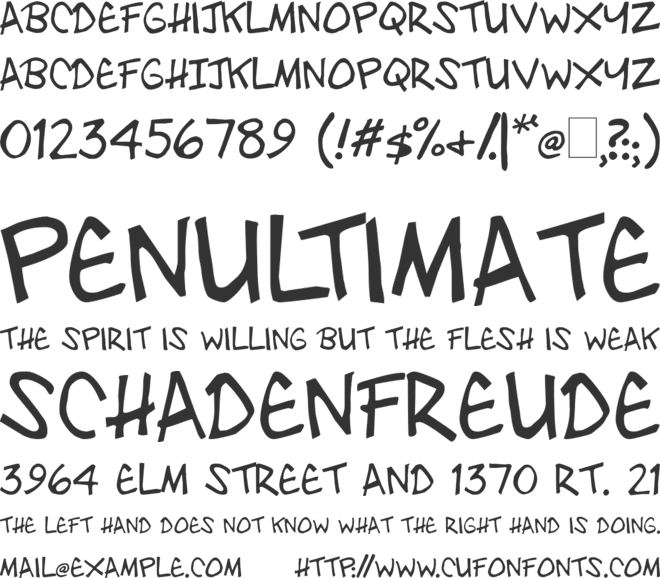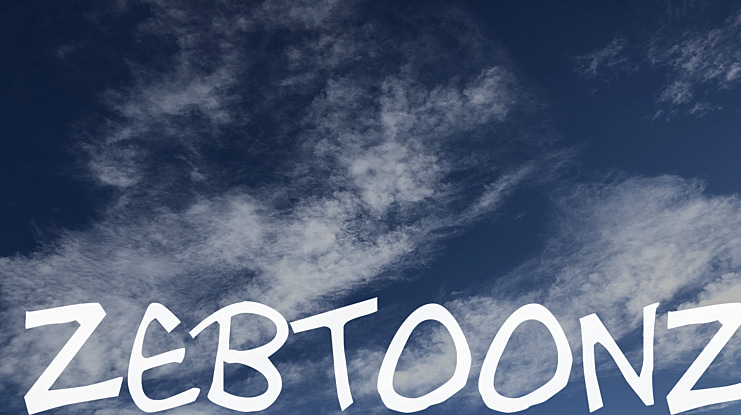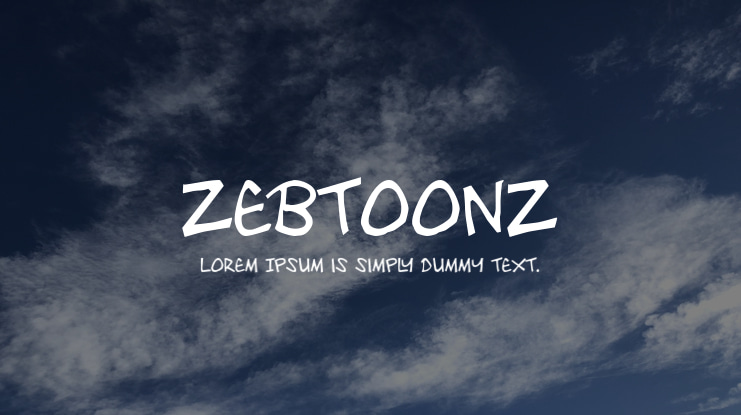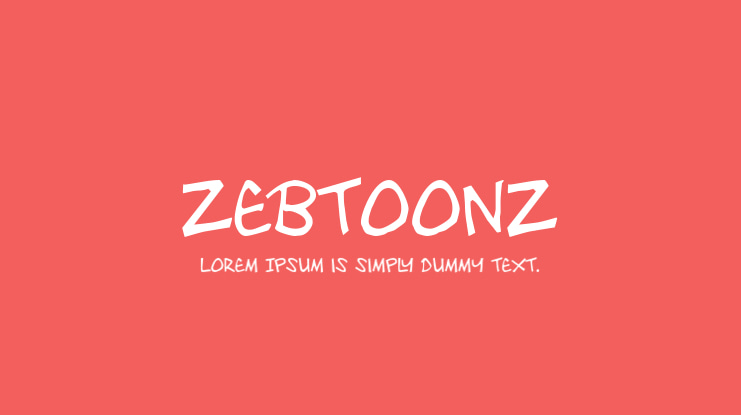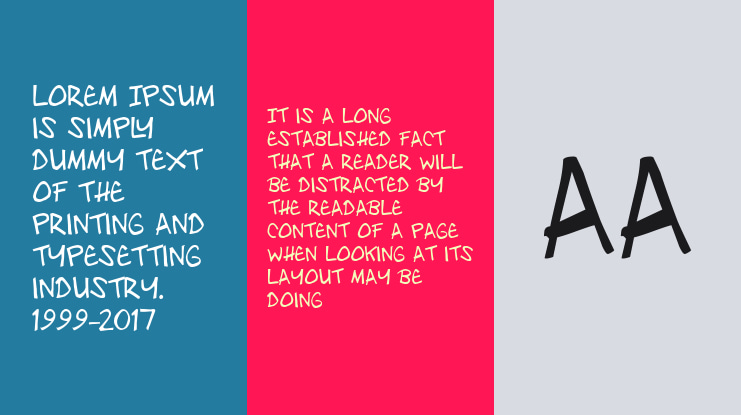
Zebtoonz Font Family
A friend of mine made this font from my handlettering that I did for a comic I illustrated. It was kinda weird having a font of my style of writing but it sure saved me time for new projects. Hope you find it useful!